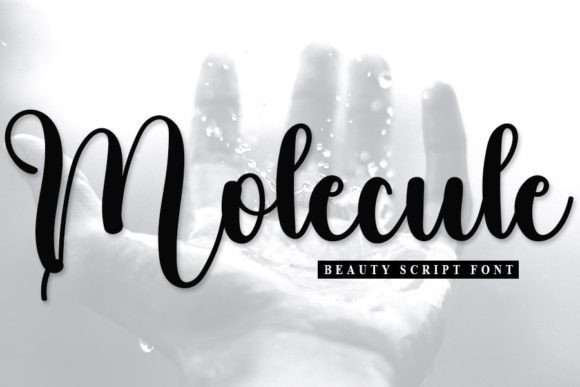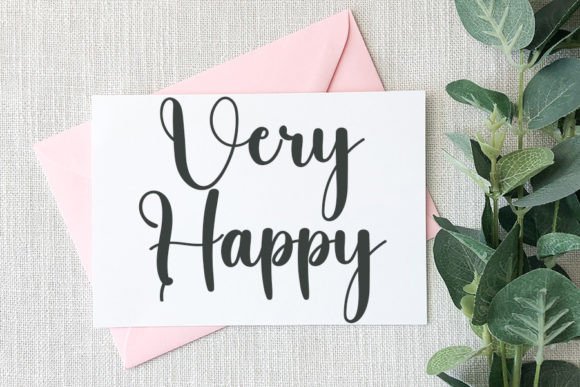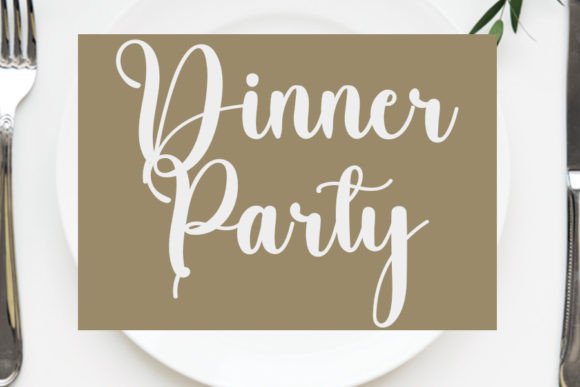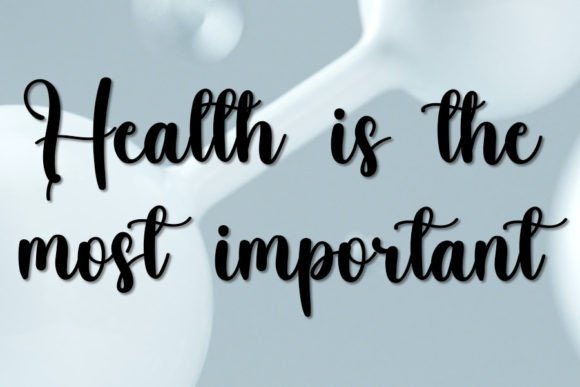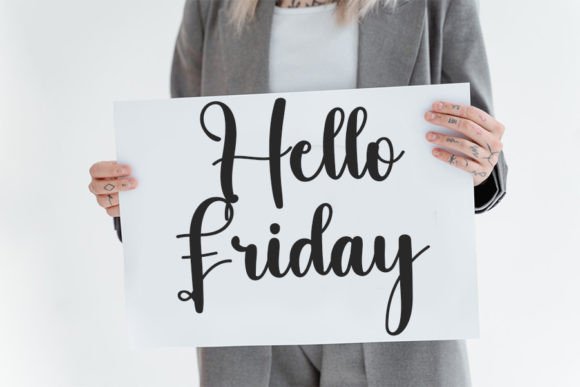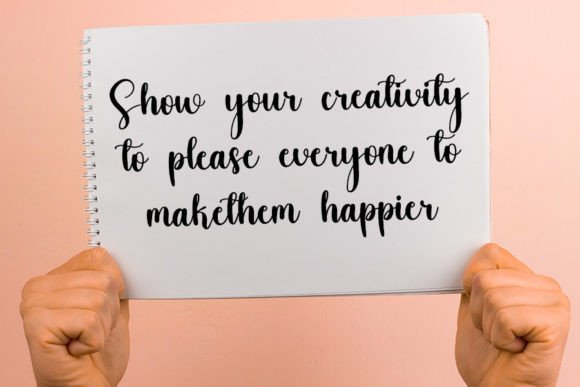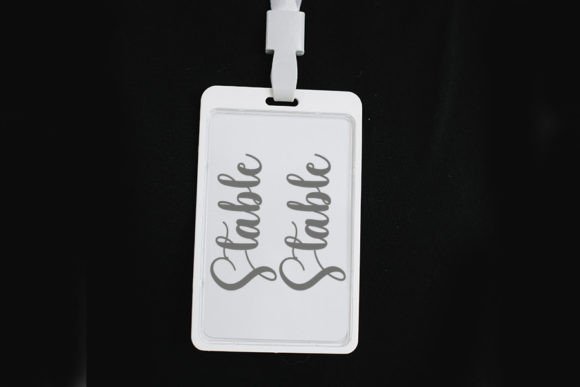
Molecule Font
About Molecule Font
Introducing “Molecule,” a beautiful and refined handwritten font that effortlessly combines class and modernity. Ideal for logos, branding, invitations, stationery, wedding designs, social media posts, and more, “Molecule” is a versatile font that adds a touch of sophistication to your creative projects.
The font’s classy and modern design makes it suitable for various applications, allowing you to create a cohesive and elegant visual identity. Whether you’re designing a logo, wedding invitations, or crafting social media content, “Molecule” is crafted to enhance the overall aesthetic.
Picture “Molecule” gracing your brand’s logo, where its beautiful and refined letterforms convey a sense of style and sophistication. Envision it becoming the go-to font for your wedding designs, adding a touch of elegance to every detail. Imagine it being used across different platforms, creating a consistent and polished look in your social media posts.
This font is not just a typographic choice; it’s a design element that brings a blend of beauty and refinement to your projects. “Molecule” is PUA encoded, providing easy access to all the amazing glyphs and ligatures, giving you creative freedom in your designs.